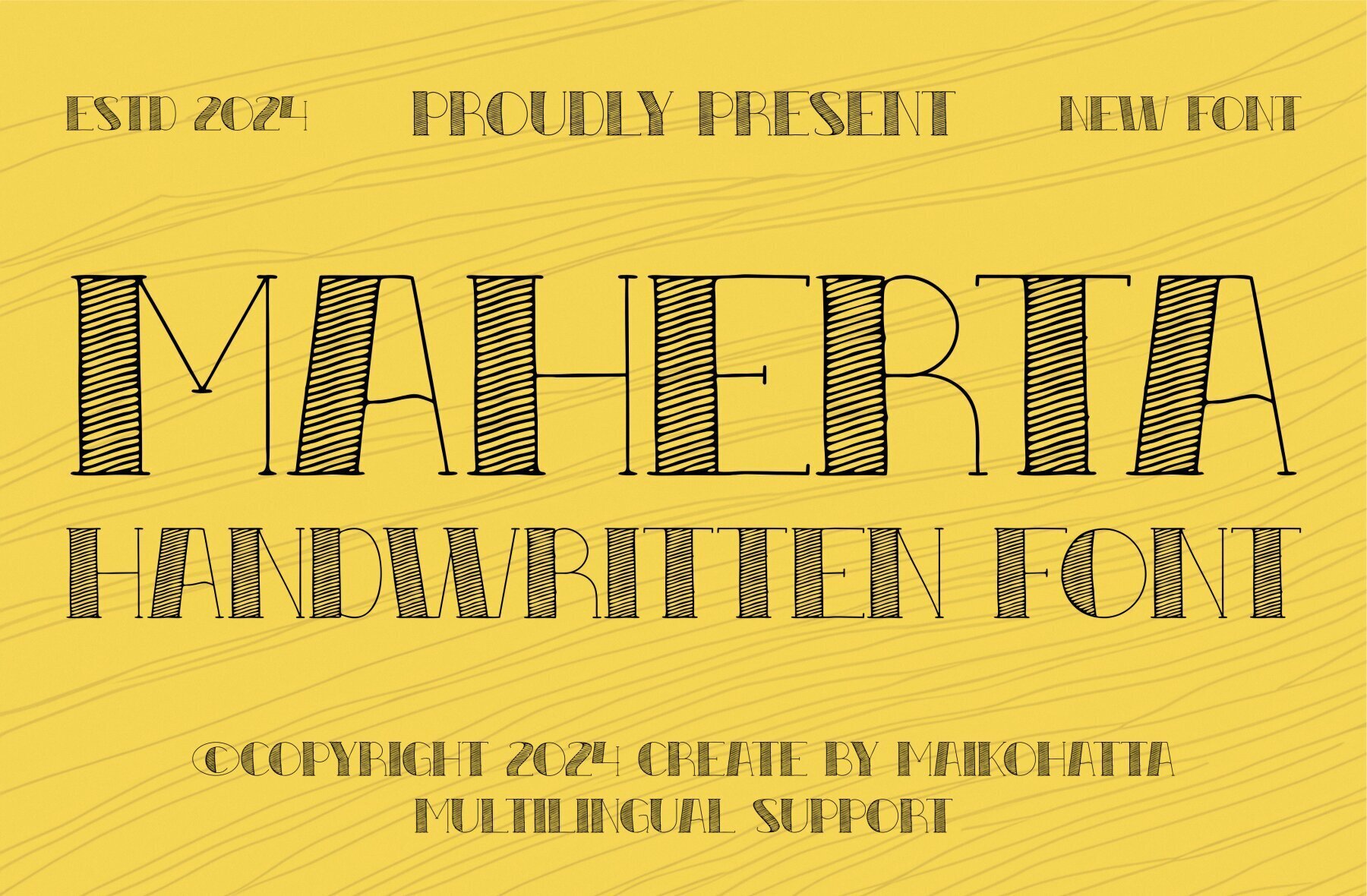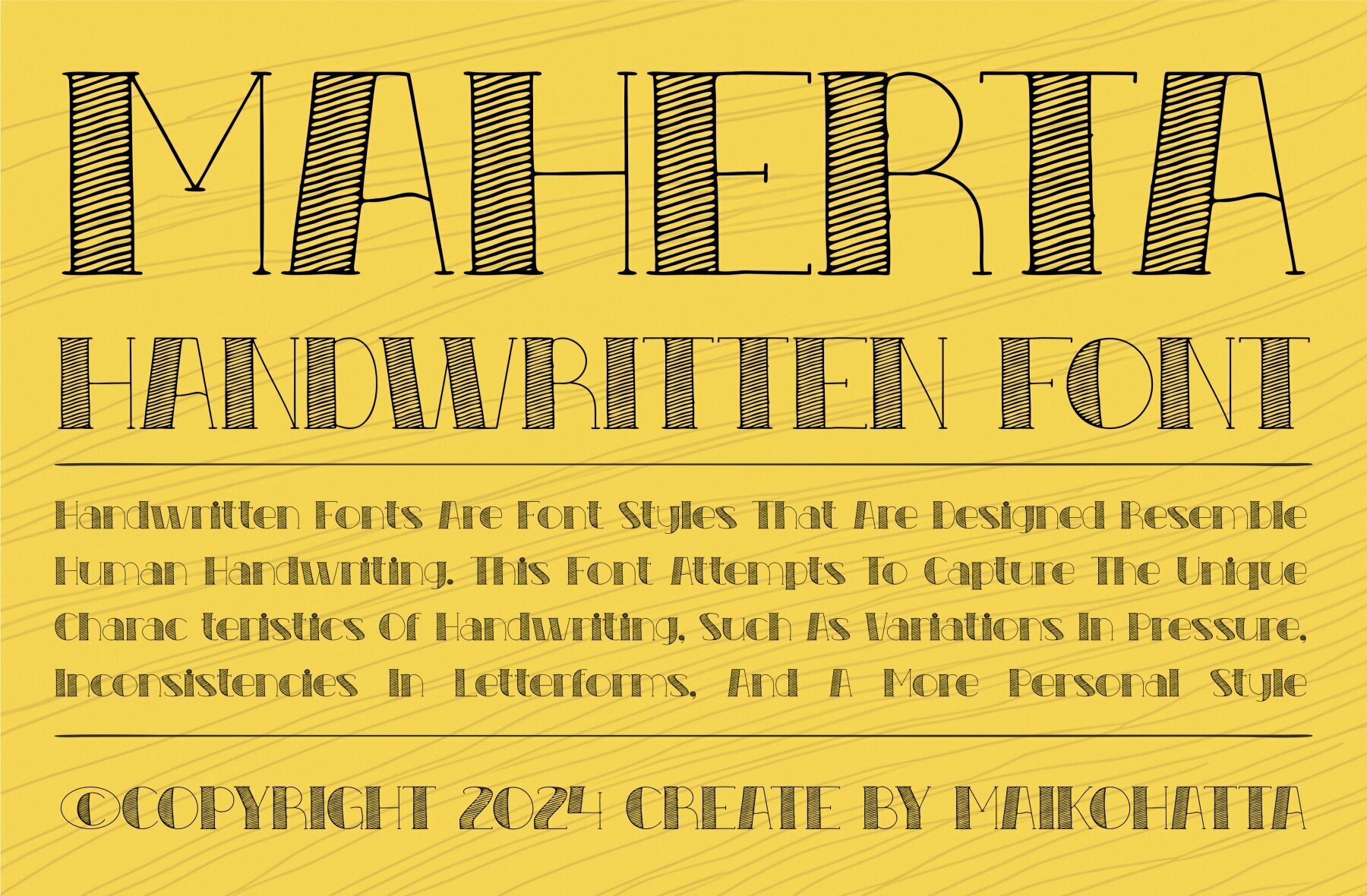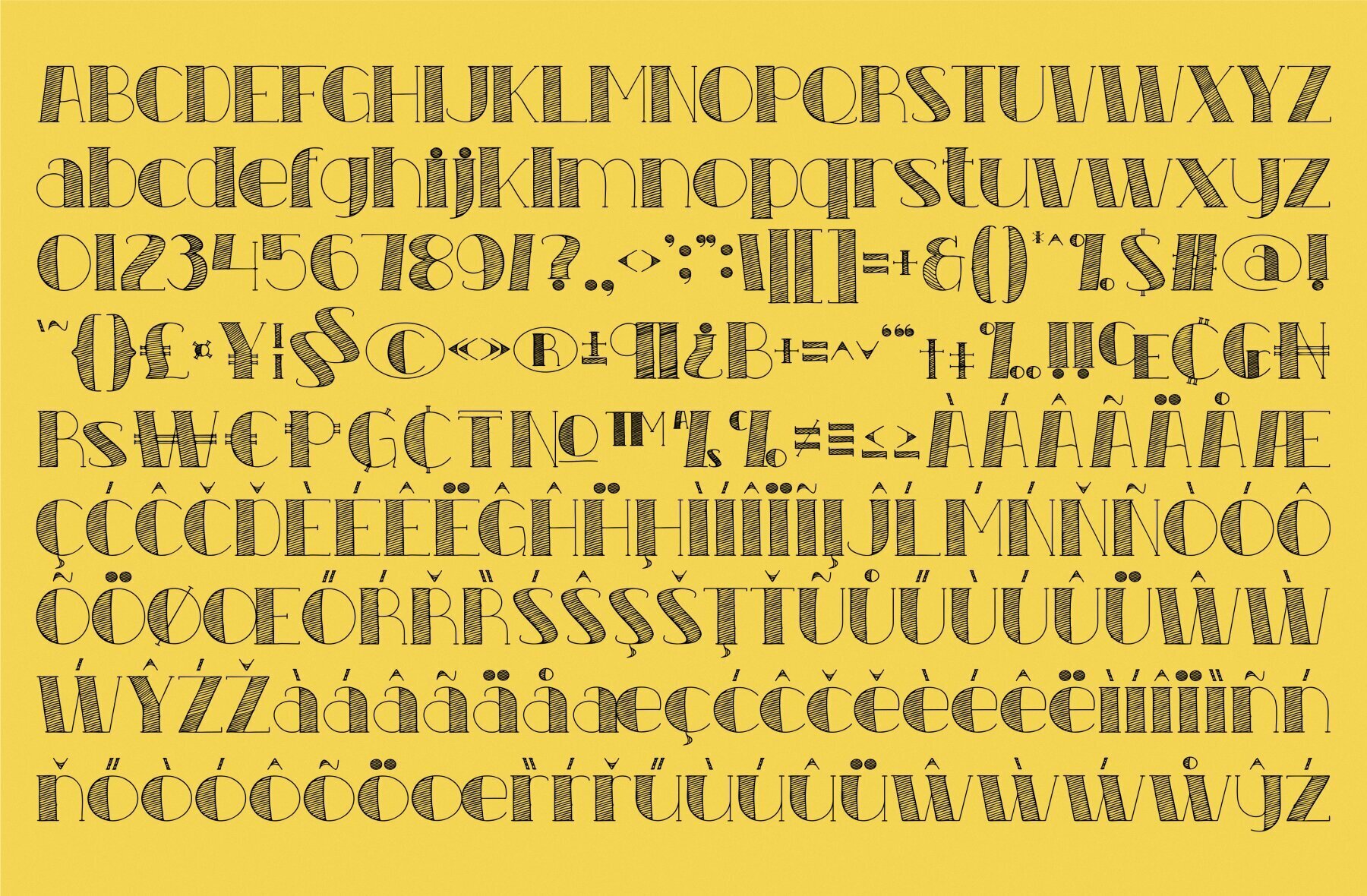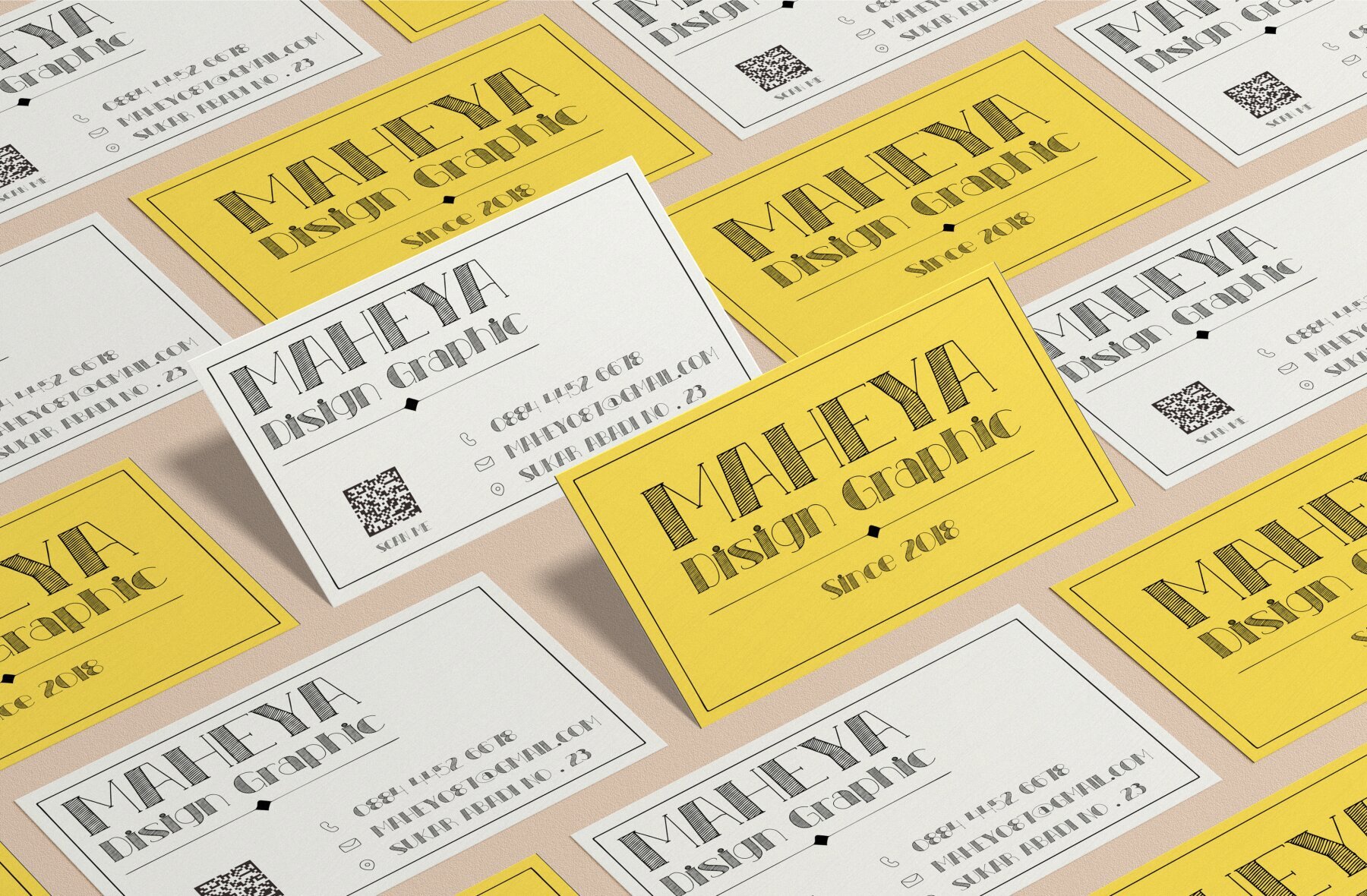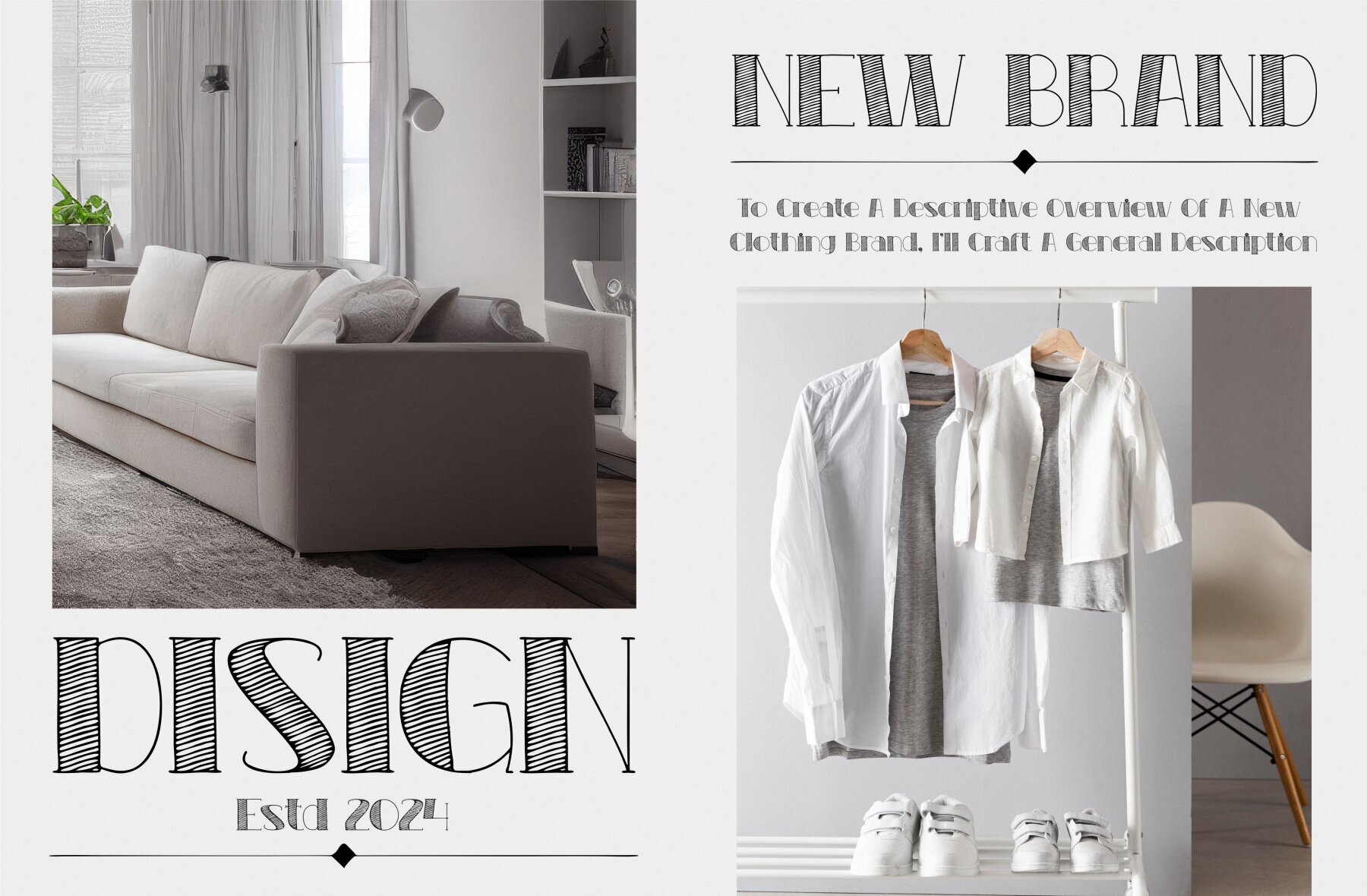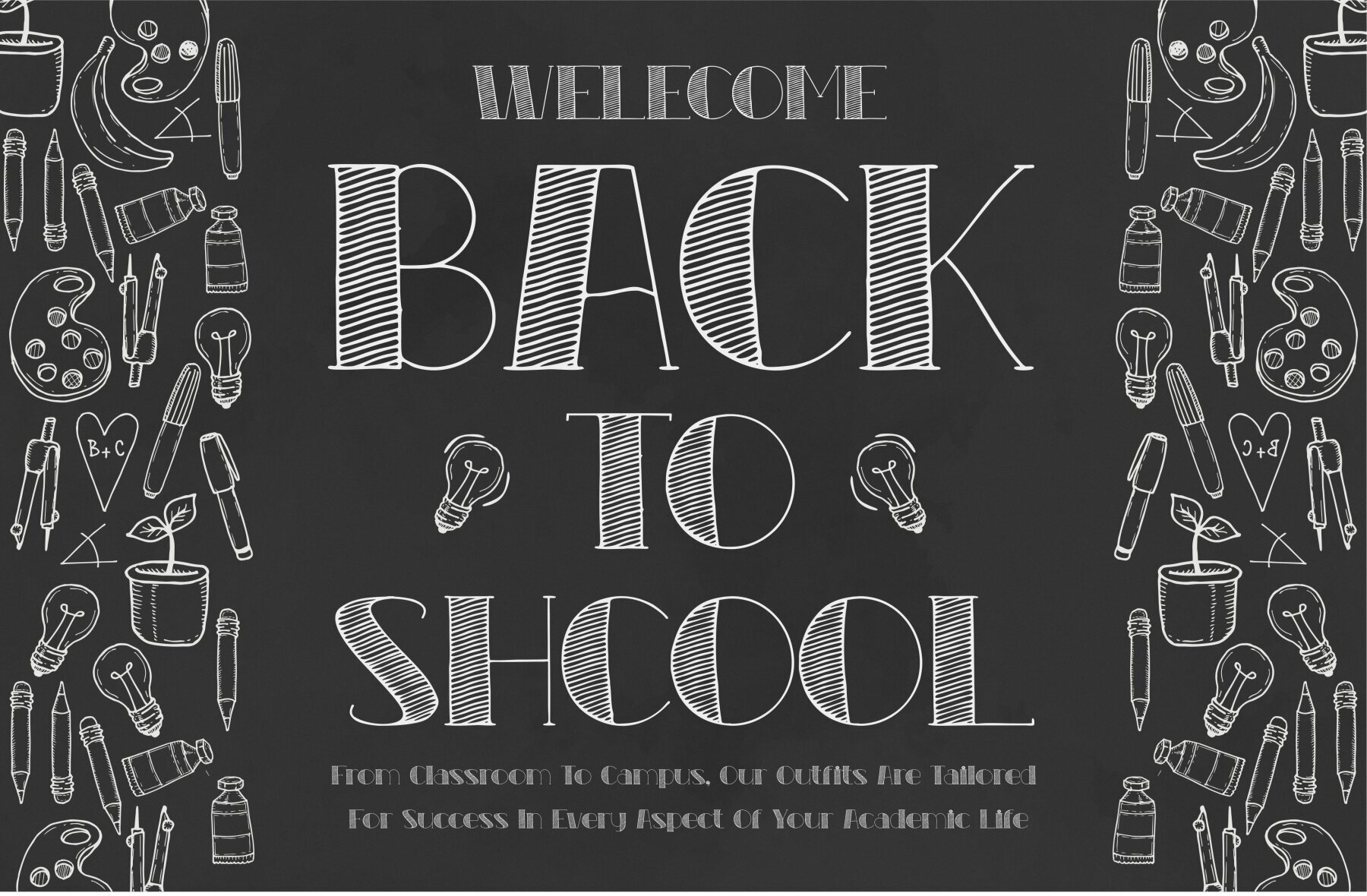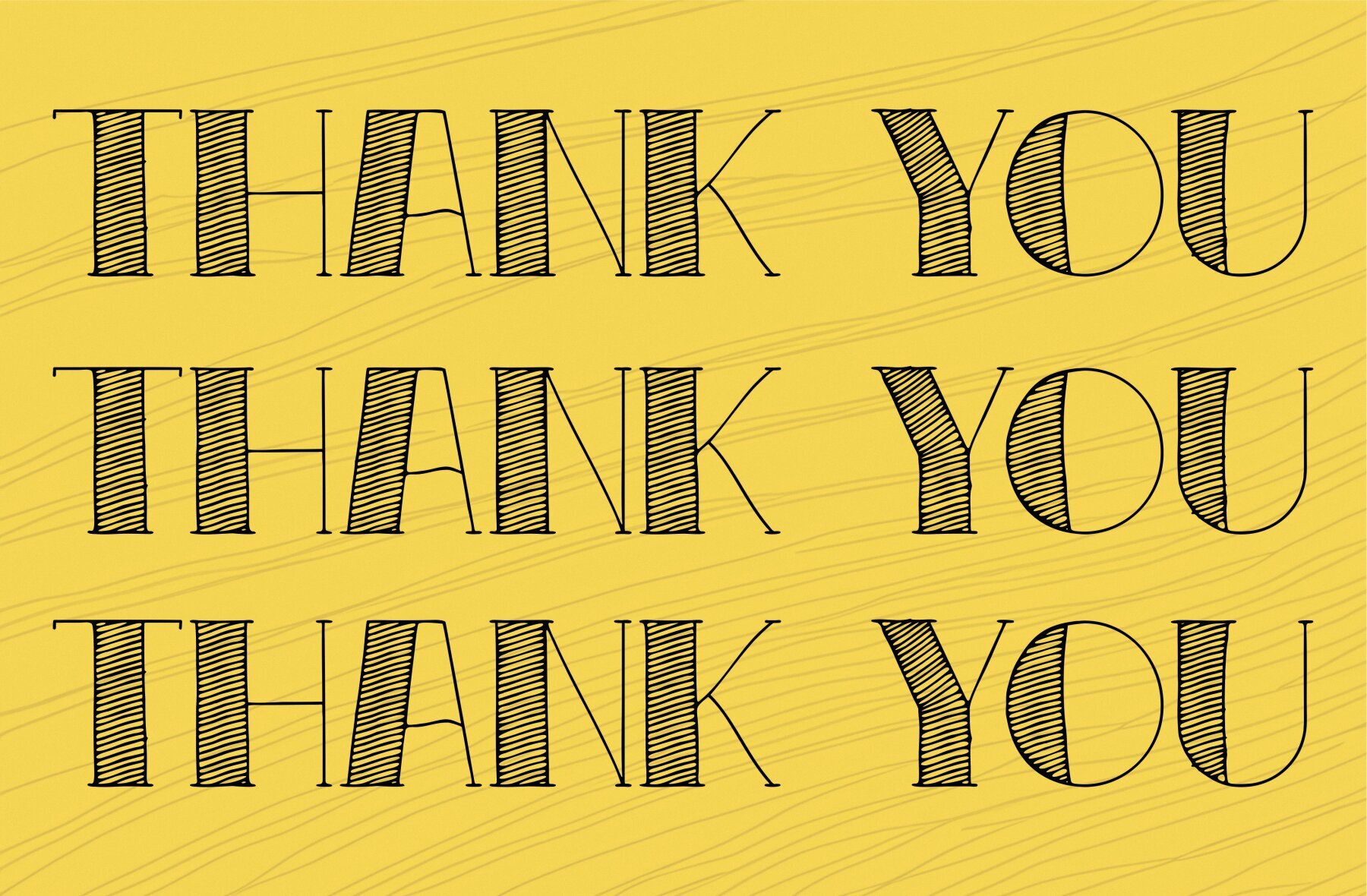
Maherta Font
Maherta Regular
Maherta is a sophisticated handwritten font perfect for adding a personal touch to your designs. Its elegant strokes are ideal for a variety of projects.Maherta: Elegant Handwritten Font